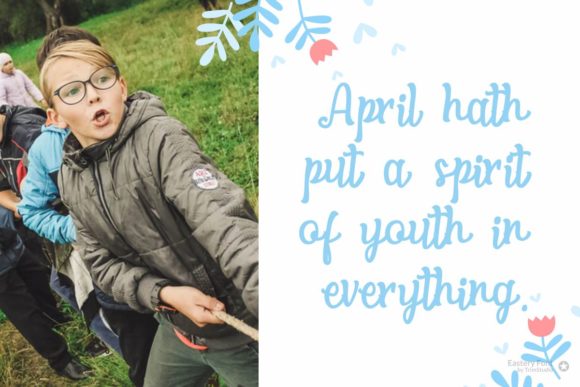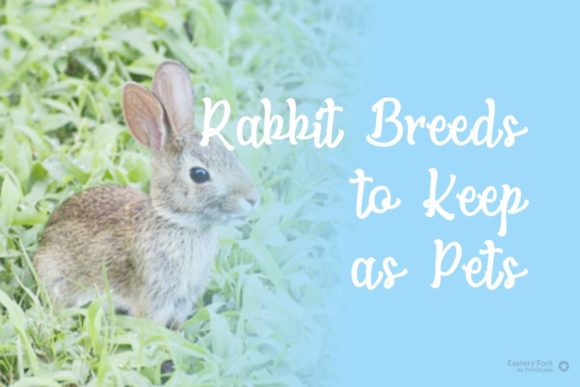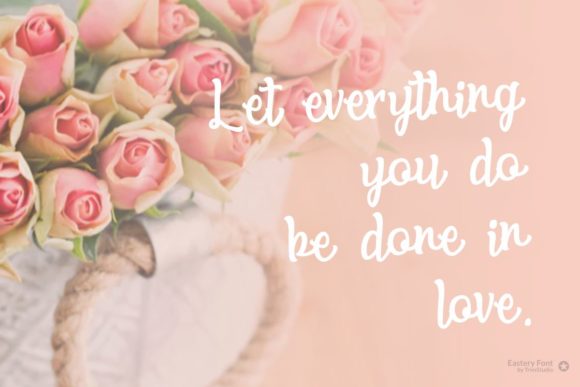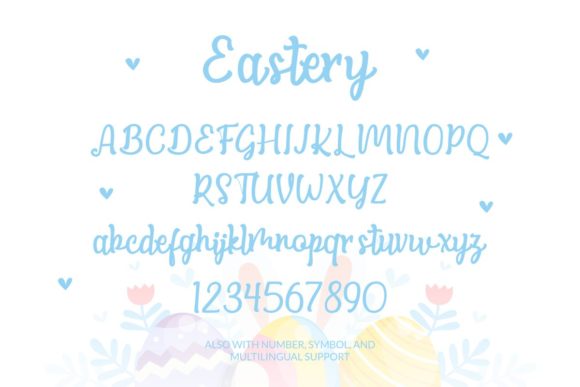
Eastery Font: The Ultimate Addition to Your Easter-themed Crafts
Easter is just around the corner, and if you’re a designer or crafter looking for a unique and playful font to elevate your Easter-themed projects, look no further than Eastery Font. This incredibly quirky and cute script font is sure to take your crafts to the next level and make them stand out from the crowd.
What is Eastery Font?
Eastery Font is a one-of-a-kind script font designed specifically with Easter in mind. Its playful and whimsical design features bouncy letters, adorable Easter-themed decorations, and a carefree vibe that’s perfect for creating festive and fun crafts. Whether you’re designing Easter cards, creating party invitations, or crafting Easter-themed decorations, Eastery Font is the perfect addition to your project.
Key Features of Eastery Font
- Unique and Quirky Design: Eastery Font boasts a truly unique and quirky design that’s sure to capture the spirit of Easter. Its bouncy letters and adorable decorations make it a standout font that’s perfect for creating eye-catching crafts.
- Cute Easter-themed Decorations: This font features adorable Easter-themed decorations, including Easter eggs, bunnies, and flowers, which add an extra touch of festivity to your projects.
- Script Font Style: Eastery Font is a script font, which gives it a playful and elegant feel that’s perfect for creating beautiful and eye-catching Easter-themed crafts.
How to Use Eastery Font in Your Easter Crafts
Eastery Font is incredibly versatile and can be used in a variety of Easter-themed crafts, including:
- Easter Cards: Create beautiful and unique Easter cards using Eastery Font. Add adorable Easter-themed decorations and sentiments to make your cards truly special.
- Party Invitations: Design festive and fun Easter party invitations using Eastery Font. Its playful design is sure to get your guests excited for the celebration.
- Easter Decorations: Use Eastery Font to create adorable Easter-themed decorations, such as Easter egg decorations, bunny signs, and more.
- Social Media Graphics: Create eye-catching Easter-themed social media graphics using Eastery Font. Its unique design is sure to make your posts stand out from the crowd.
Tips for Getting the Most Out of Eastery Font
- Experiment with Colors: Eastery Font looks great in a variety of colors, so don’t be afraid to experiment and find the perfect color scheme for your Easter crafts.
- Add Easter-themed Elements: Take your Easter crafts to the next level by adding adorable Easter-themed elements, such as Easter eggs, bunnies, and flowers.
- Mix and Match Fonts: Eastery Font pairs well with other fonts, so try mixing and matching it with different fonts to create a unique and eye-catching look.
Eastery Font is an incredibly quirky and cute script font that’s perfect for taking your Easter-themed crafts to the next level. Its unique design, adorable Easter-themed decorations, and ease of use make it a must-have font for designers and crafters. Whether you’re creating Easter cards, party invitations, or decorations, Eastery Font is sure to add a touch of festivity and fun to your projects. So why wait? Download Eastery Font today and start creating adorable Easter-themed crafts that will impress your friends and family!